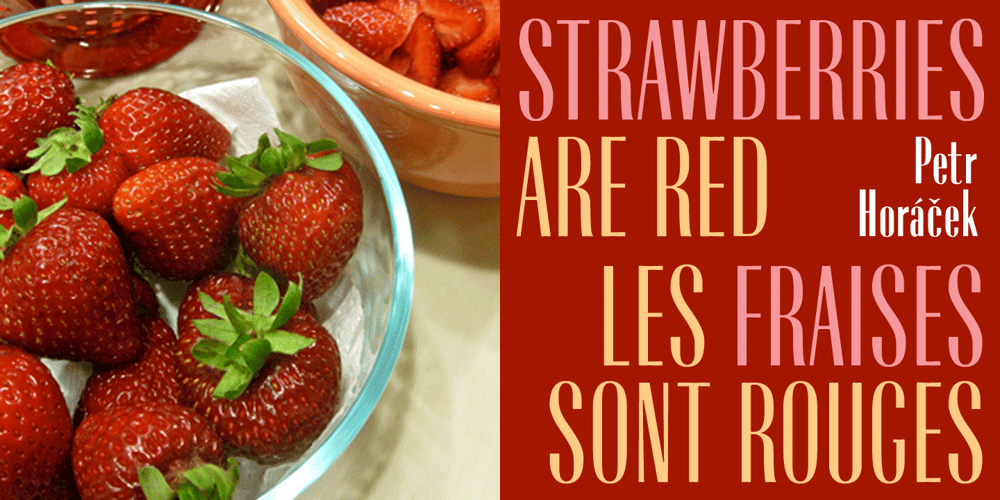
Radiant Extra Condensed CT
Radiant Extra Condensed CT font
Radiant Extra Condensed CT Font Family was designed by Jason Castle and published by CastleType. Radiant Extra Condensed CT contains 6 styles and family package options. I was commissioned by the Emporium (now Macys) to digitize Radiant Bold Extra Condensed (originally designed by Robert Middleton in 1940) for use in their Sunday supplement to the San Francisco Examiner. For several years, I stubbornly refused to add the lowercase letters to the font, because I thought it looked best just used with caps, but finally relented, added the lowercase letters and at the same time created two more weights as well: Light and Medium. Used very large and carefully, these faces can be quite elegant.